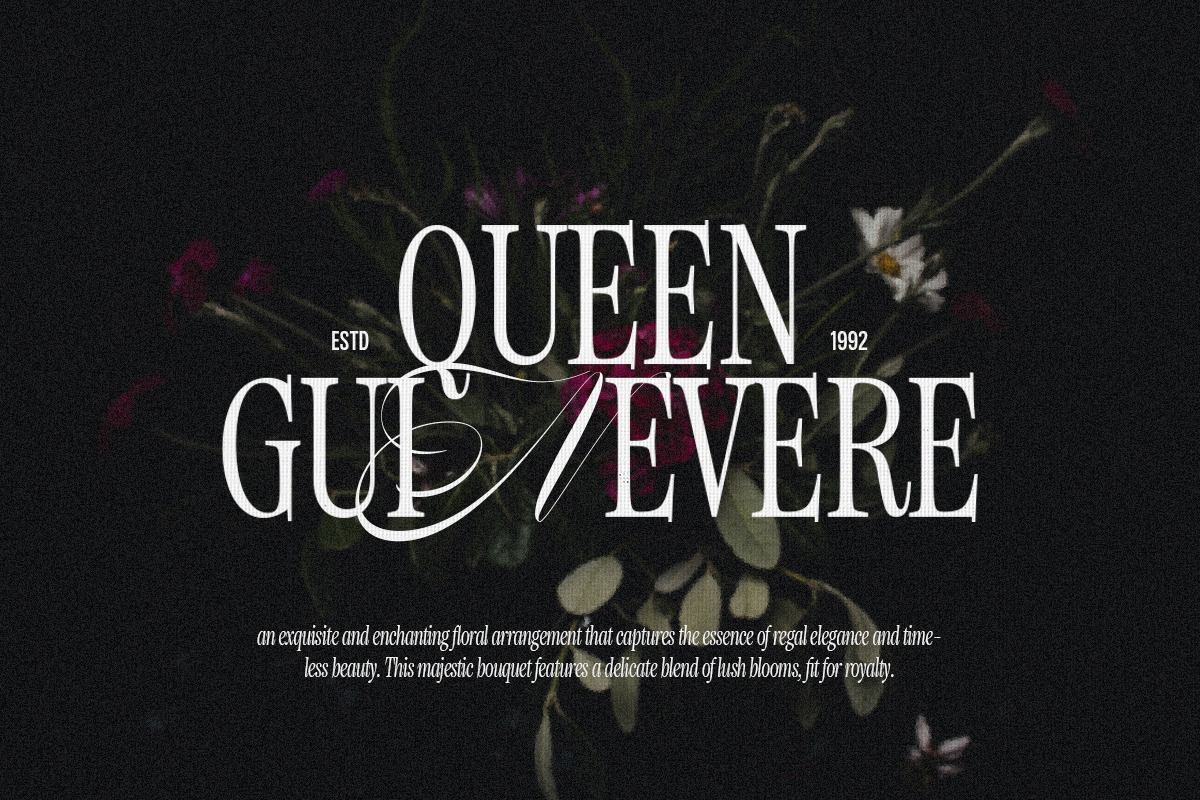
Elyanor A Classic Display Serif Font Free Download is an elegant and timeless serif typeface designed to bring a classic yet contemporary flair to your designs. Featuring refined serifs, smooth curves, and high contrast strokes, Elyanor is ideal for luxury branding, editorial designs, high-end packaging, posters, and any project that requires sophistication and class.
Its versatility allows it to work beautifully in both large display sizes and smaller body text, making it perfect for a wide range of applications. Elyanor combines the elegance of classic typefaces with modern readability, ensuring your designs stand out with style and grace.